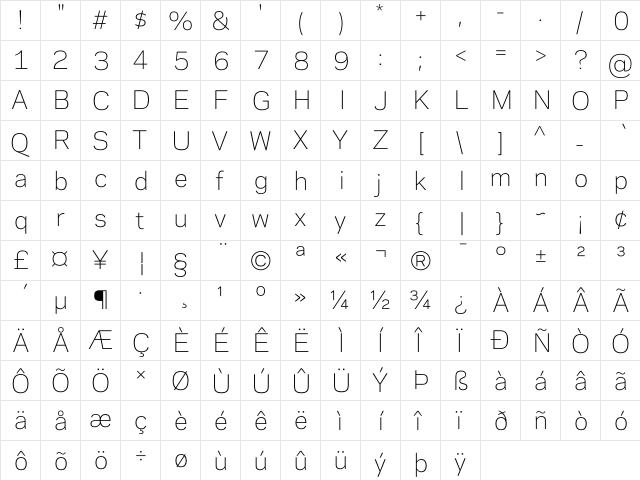
Galaxie Polaris Light
Design Context for Galaxie Polaris Typeface
Galaxie Polaris offers clean, dependable letterforms without strong stylistic allegiance, making it a practical choice for designers who need flexibility. The delicate stroke weight brings airiness and refinement to layouts.
Pro Tip: Pair Galaxie Polaris with a font of contrasting weight or personality to build a more expressive typographic hierarchy.